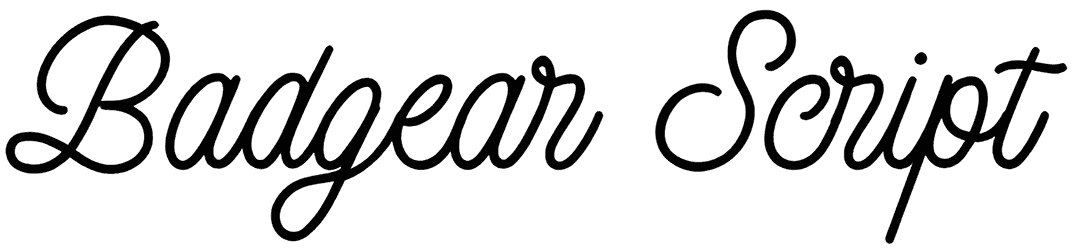
Badgear Script Font
Badgear Script is designed with simple and exquisite details to bring elegance and a clean, feminine look. For this reason, designers interested in minimal or modern style can use this invitation font on their various projects, such as posters, packaging, and informal letters. By doing this, a modern touch of human handwriting style will be added to your writing, which will represent its authenticity.